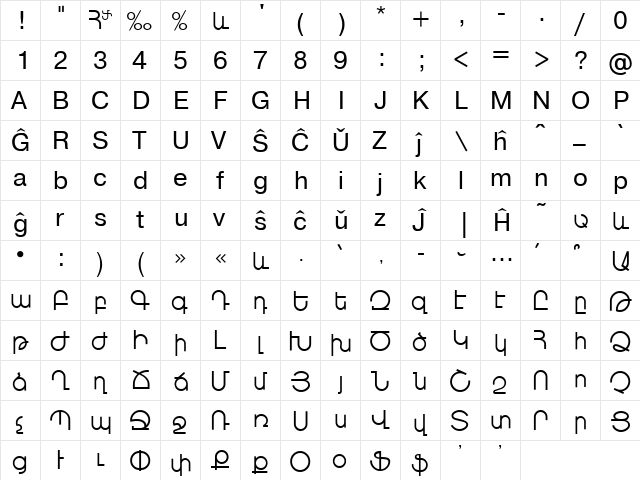
Espar Arial Alt Regular
Design Context for Espar Arial Alt Typeface
Espar Arial Alt takes a measured approach to typography — its balanced proportions and neutral character make it a reliable workhorse for both digital and print work.